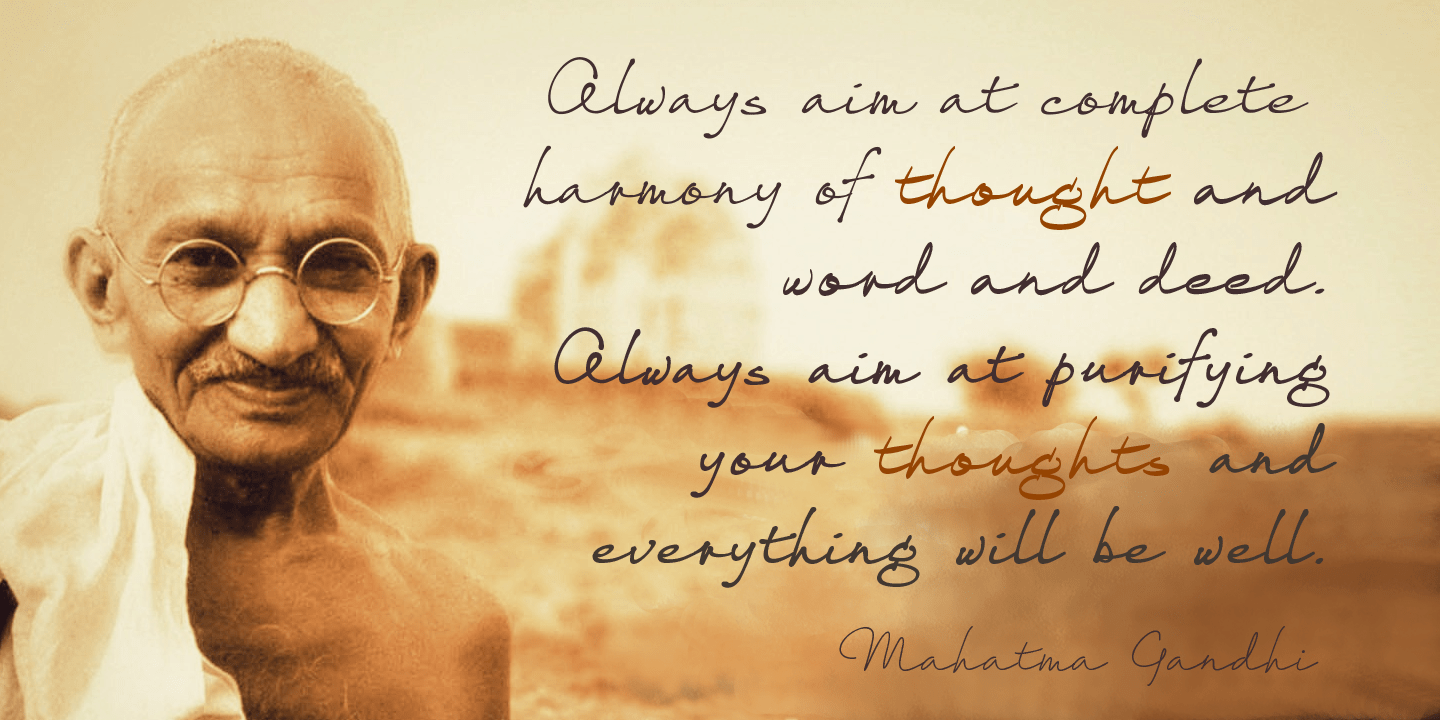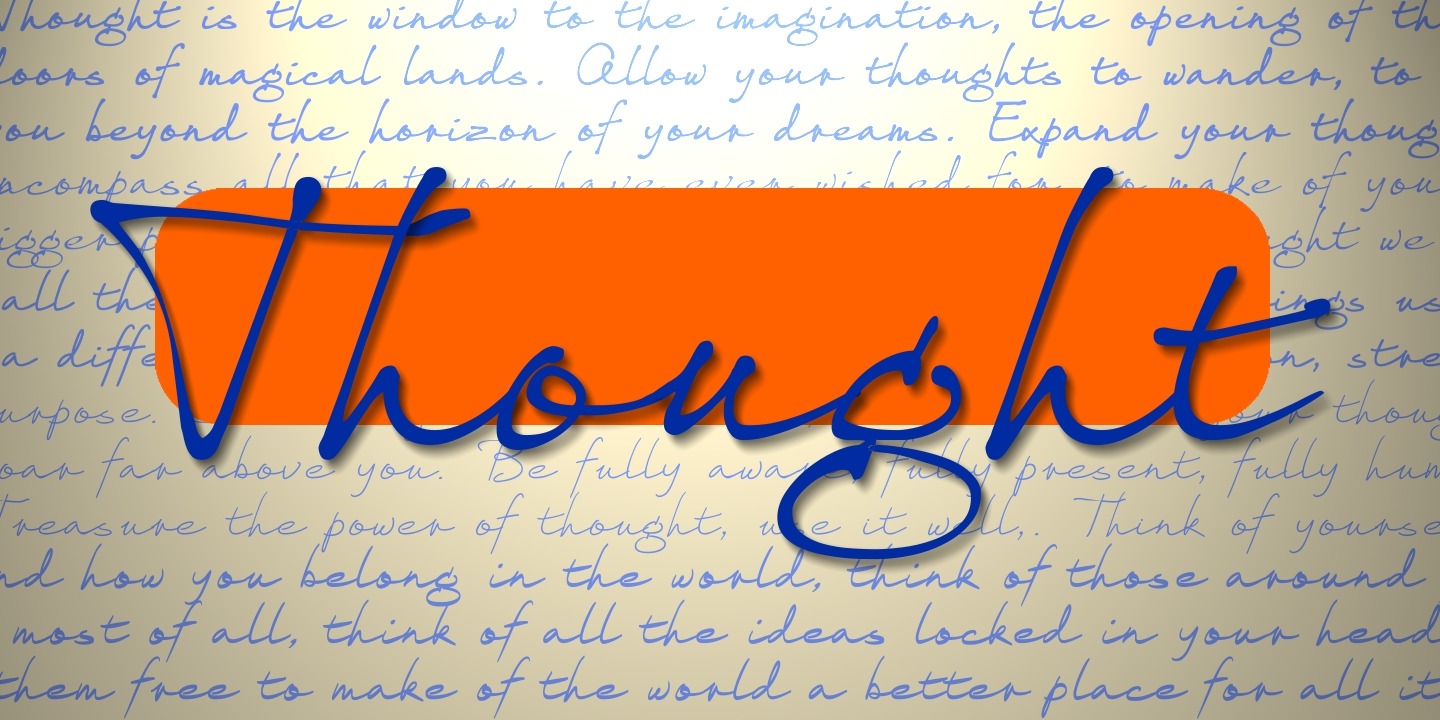
Thought
Thought, with its versatile five styles, is ideal for contemporary display work. It has style, flair, legibility, and interesting, flowing letter shapes.
Thought has not been designed to be used in ?ALL CAPS?. The best effects for headings and subheads are obtained with an initial upper case letter followed by lower case characters. If you are using upper and lower case then it is not necessary to use kerning.
Thought contains over 250 characters - (upper and lower case characters, punctuation, numerals, symbols and accented characters are present). It has all the accented characters used in most European languages.